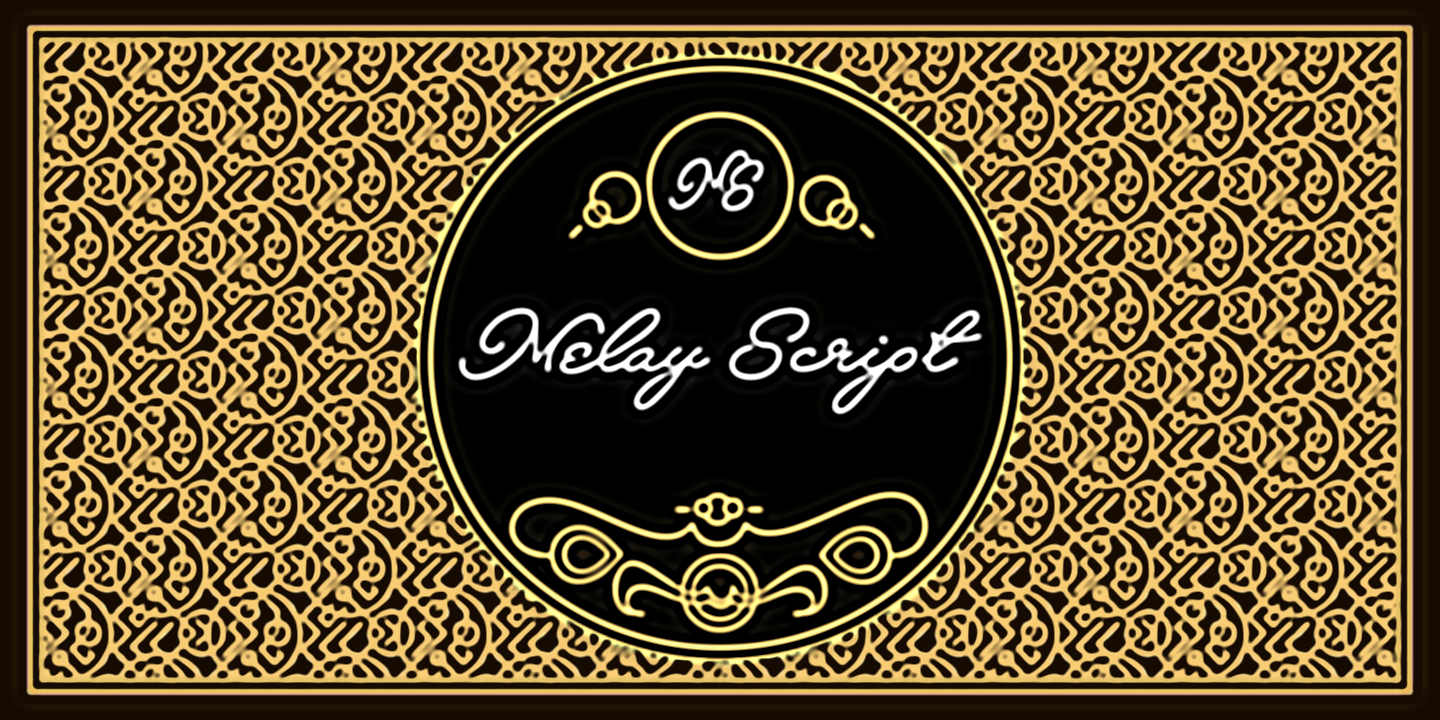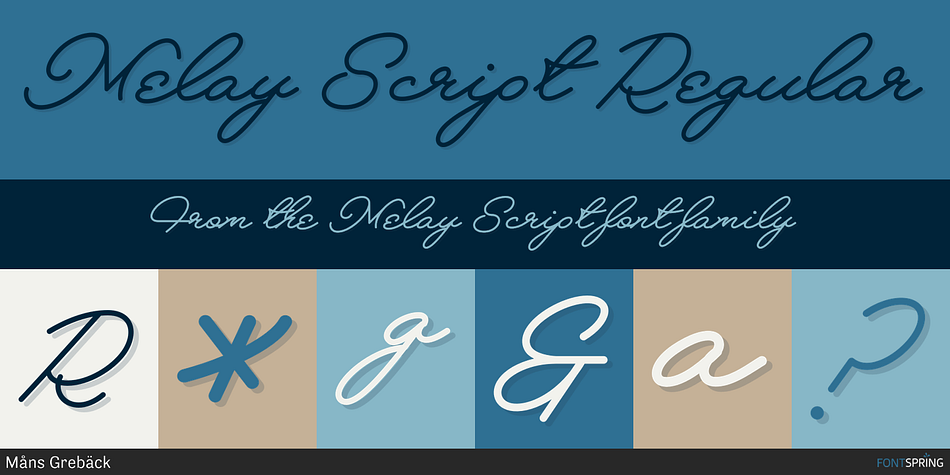
Melay Script Regular
Designed by Noah Kinard and Måns Grebäck, Melay Script is a script font published by Aring Typeface AB.
Melay Script is a monolined calligraphic typeface, with large and beautiful upper-case letters and a decorative style.
Melay Script is a monolined calligraphic typeface, with large and beautiful upper-case letters and a decorative style. It has elegance and confidence.
Foundry Måns Grebäck
Designers Noah Kinard, Måns Grebäck